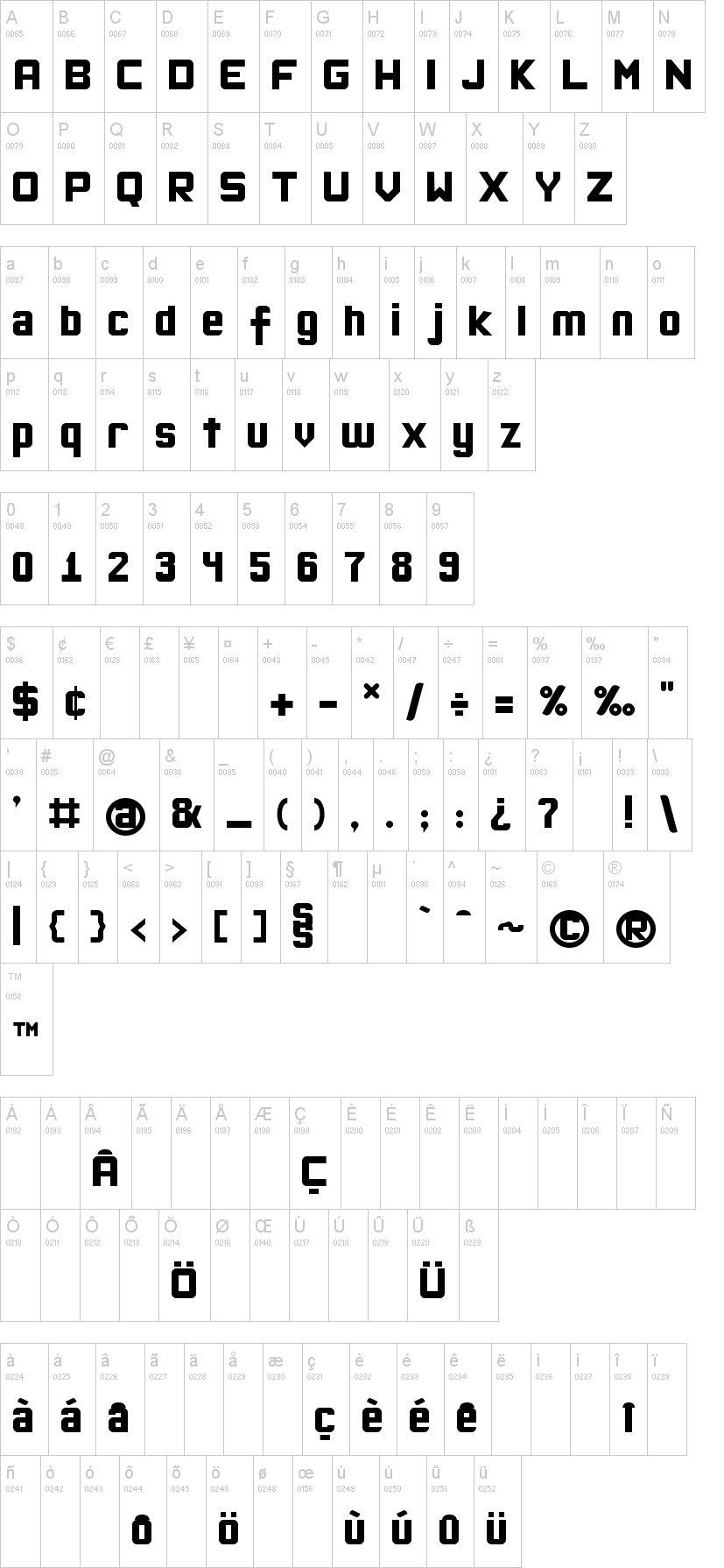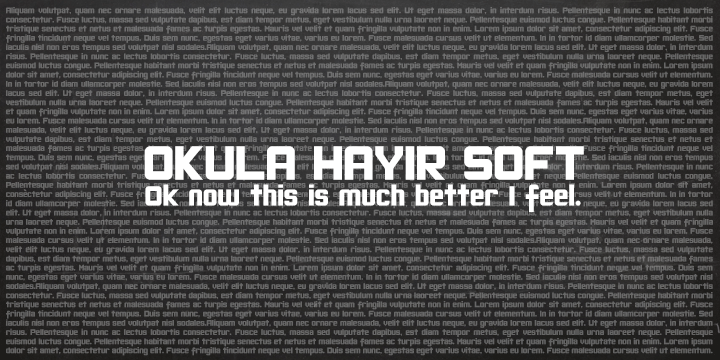
Note of the authorMy first work was the sturdy octagonal typeface "Okula Hayır" https://okulahayir.tumblr.com/ web font that I was inspired by bricks. This my third typeface. I modified and rounded this font and it becomes "Okula Hayır Soft" much better much softer much usable I think.